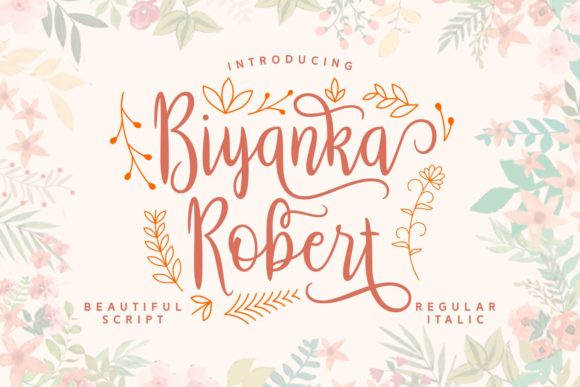
The Ultimate Crafting Font: Biyanka Robert
Have you ever been in the middle of a design project, and suddenly, you’re stuck on finding the perfect font? I recall a recent experience where a client asked for a custom craft project with a unique, hand-crafted feel. After scouring through numerous font libraries, I stumbled upon Biyanka Robert, and it instantly became my go-to font. In this article, I’ll share my journey with Biyanka Robert, its features, and how to make the most out of this lovely crafting font.
An Honest Review of Biyanka Robert
What I Love About Biyanka Robert
• ✨ Lovely, PUA swashes that add a touch of elegance to any design
• ✅ Highly versatile and suitable for various crafting projects, from cards to scrapbooking
• 💫 Beautifully designed to evoke a sense of handmade craftsmanship
• 🌈 Extensive character set, including glyphs and stylistic alternates
While Biyanka Robert is an excellent font, there are a few minor limitations to consider:
• ⚠️ Some users might find the font a bit too ornate for certain projects
• 🤔 Limited availability of language support, mainly focused on English and some European languages
The Story Behind Biyanka Robert
Biyanka Robert’s design story revolves around creating a font that embodies the spirit of handmade craftsmanship. The designer aimed to craft a font that would be both elegant and approachable, perfect for crafters and designers looking to add a personal touch to their projects.
Author Rifki (7ntypes)
Q: What makes Biyanka Robert suitable for crafting projects?
A: Biyanka Robert’s lovely swashes and extensive character set make it an ideal font for crafting projects, such as cards, scrapbooking, and other DIY endeavors.
Q: Is Biyanka Robert available in different languages?
A: Biyanka Robert primarily supports English and some European languages. If you need support for other languages, you may want to check the font’s language support or consider an alternative font.